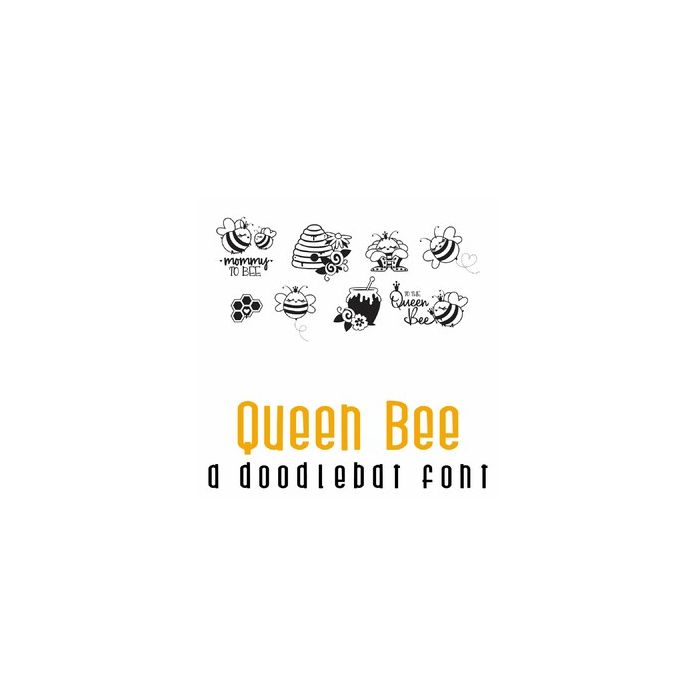
This fun doodlebat font features adorable Queen bees, pretty florals and honeycomb. Perfect for Mother's Day, cards, crafts, gifts, planner stickers, scrapbook pages and more!